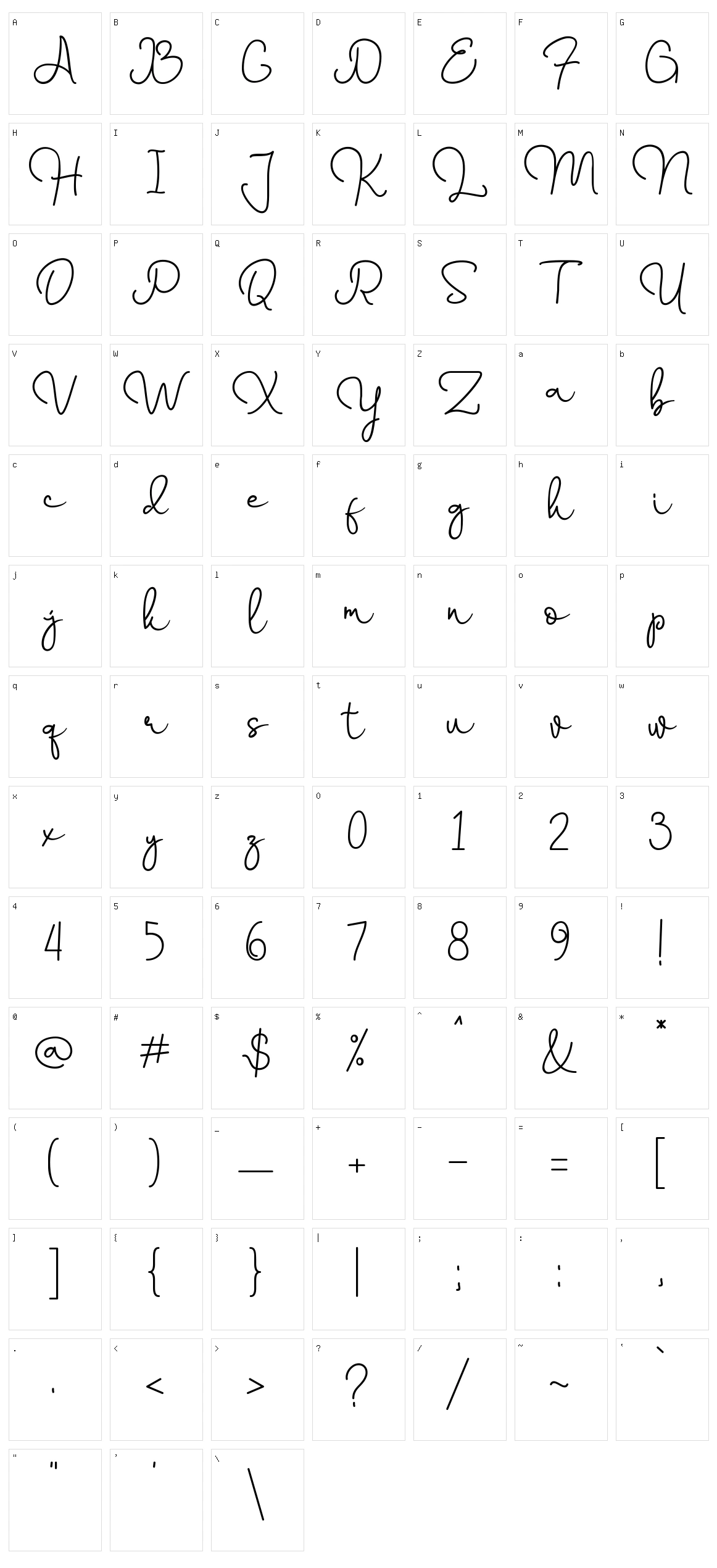
The free font Yussan is carefully designed by aldedesign, showcasing a thoughtful balance of creativity and usability and falls under the Script font style. When you download the ZIP file, it contains only 55.69 KB of font files, making it lightweight and quick to download. Please review the license details below to understand permitted usage and distribution rights. If license information is not available, we recommend using this font for personal projects only or contacting the author directly for commercial usage permissions.